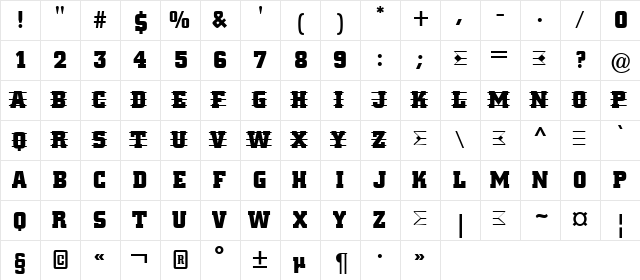
a_CityNovaTtD3StrCmb Regular
Design Context for a_CityNovaTtD3StrCmb Typeface
a_CityNovaTtD3StrCmb is a composed and adaptable typeface that performs quietly and consistently across a wide range of design contexts.